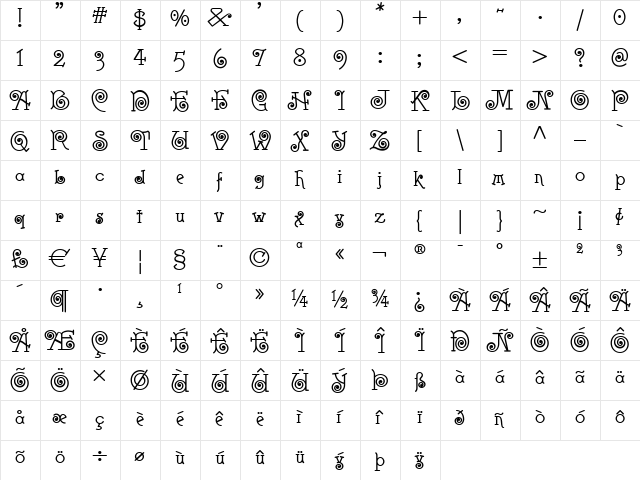
Hasta La Pasta NF Regular
Design Context for Hasta La Pasta NF Typeface
Hasta La Pasta NF is a composed and adaptable typeface that performs quietly and consistently across a wide range of design contexts.